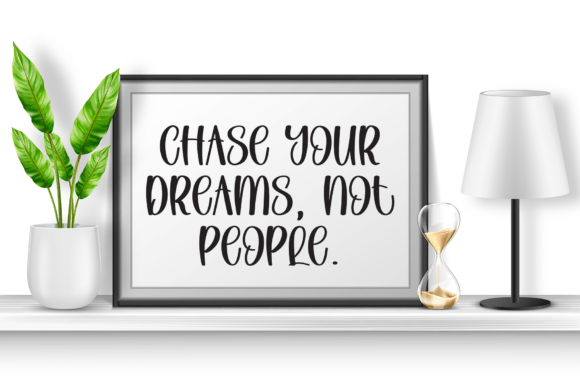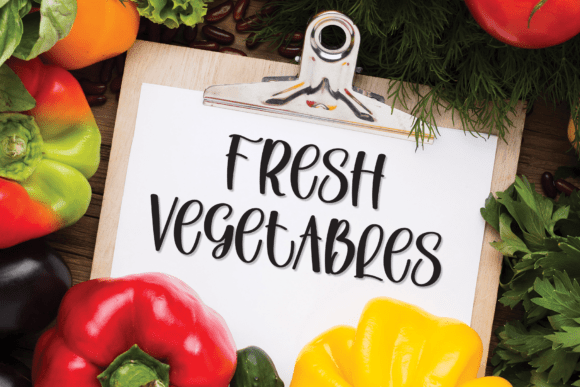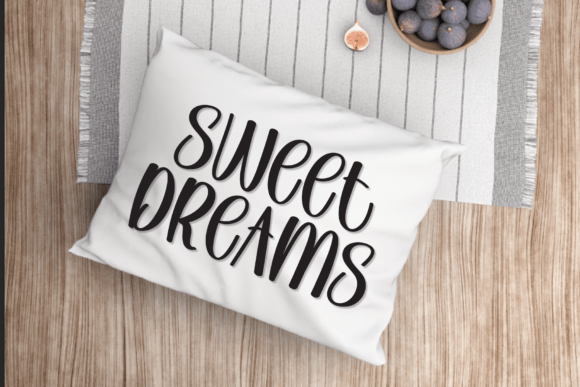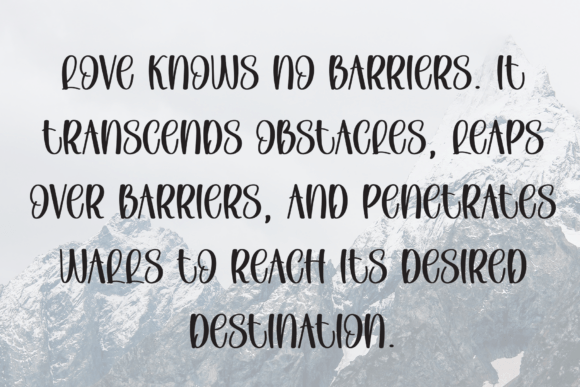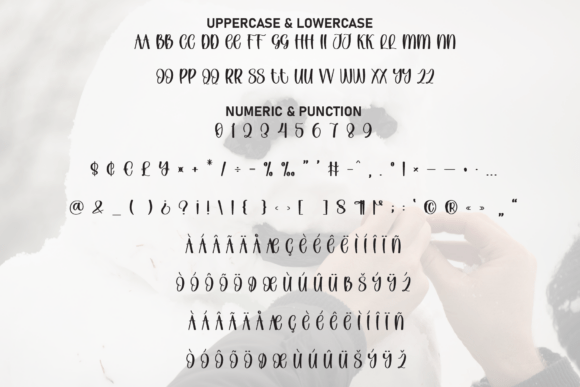
Frosty Somebody Font: Add a Playful Touch to Your Creations
Are you looking for a font that can add a dash of fun and whimsy to your designs? Look no further than Frosty Somebody Font, a delightful and affable handwritten display font that’s perfect for crafting unique and charming creations. In this article, we’ll introduce you to the features and benefits of Frosty Somebody Font, and explore how you can use it to elevate your design projects.
A Delightful and Affable Handwritten Display Font
Frosty Somebody Font is a stylishly quaint font that’s designed to bring a playful and whimsical touch to your designs. With its handwritten charm and affable personality, this font is perfect for adding a personal touch to your creations. Whether you’re crafting romantic wedding invitations, heartfelt cards, or any design project that requires a unique charm, Frosty Somebody Font is a fantastic choice.
Perfect for Romantic Wedding Invitations and Heartfelt Cards
Frosty Somebody Font is particularly well-suited for romantic wedding invitations and heartfelt cards. Its playful and whimsical touch adds a touch of elegance and sophistication to your designs, making it perfect for special occasions. With Frosty Somebody Font, you can create beautiful and unique wedding invitations, save-the-date cards, and thank-you notes that will leave a lasting impression on your loved ones.
Unique Charm with a Dash of Fun
What sets Frosty Somebody Font apart from other fonts is its unique charm and dash of fun. This font is designed to add a playful touch to your designs, making it perfect for crafters and designers who want to create something truly special. With Frosty Somebody Font, you can add a touch of personality to your designs, making them stand out from the crowd.
Features and Benefits of Frosty Somebody Font
Frosty Somebody Font offers a range of features and benefits that make it a great choice for designers and crafters. Some of the key features and benefits include:
- Handwritten charm: Frosty Somebody Font has a beautiful handwritten charm that adds a personal touch to your designs.
- Playful and whimsical: This font has a playful and whimsical touch that makes it perfect for adding a dash of fun to your designs.
- Unique and charming: Frosty Somebody Font has a unique and charming personality that makes it perfect for crafting romantic wedding invitations, heartfelt cards, and other special designs.
How to Use Frosty Somebody Font in Your Designs
Using Frosty Somebody Font in your designs is easy. Here are a few tips to get you started:
- Pair it with other fonts: Frosty Somebody Font pairs well with other fonts, such as serif and sans-serif fonts. Experiment with different font combinations to create a unique look.
- Use it for headings and titles: This font is perfect for headings and titles, where you want to add a touch of personality and whimsy.
- Add a personal touch: Use Frosty Somebody Font to add a personal touch to your designs, such as in romantic wedding invitations and heartfelt cards.
Frosty Somebody Font is a delightful and affable handwritten display font that’s perfect for adding a playful and whimsical touch to your designs. With its unique charm and dash of fun, this font is a fantastic choice for crafting romantic wedding invitations, heartfelt cards, and any design project that longs for a unique charm. Whether you’re a designer or crafter, Frosty Somebody Font is a great addition to your font collection.